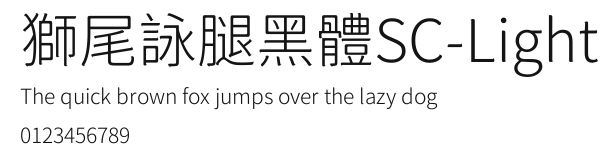
獅尾詠腿黑體SC-Light Preview
• Font Name: 獅尾詠腿黑體SC-Light
• Font Style: Light
• Full Font Name: 獅尾詠腿黑體SC-Light
About 獅尾詠腿黑體SC-Light.ttf
獅尾詠腿黑體SC-Light.ttf is a modern, elegant sans-serif font designed for ultimate readability and visual harmony. Perfect for branding, headlines, web design, and print materials.